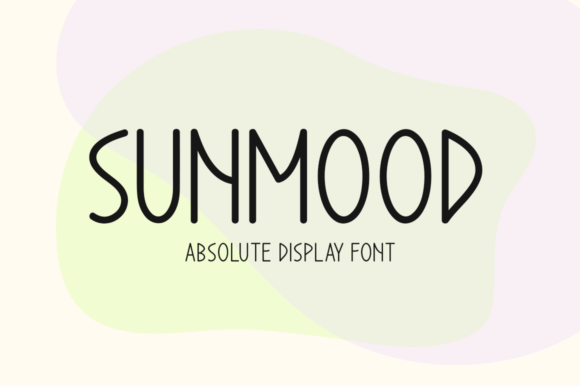
Get ready to unveil the exceptional Sunmood Font, a captivating handwritten display font designed to ignite your creativity and leave a lasting impression. Step into a world of visual delight as Sunmood's unique characters dance across your designs, evoking a sense of playfulness and genuine connection.
With Sunmood, you hold the key to unlocking endless possibilities. Picture your designs adorned with this enchanting font, transforming ordinary text into a symphony of visual artistry. From personal invitations to captivating social media posts, Sunmood seamlessly elevates your words, adding a touch of whimsy and heartfelt charm.
Imagine your designs basking in the warmth of Sunmood's embrace. Its carefully crafted curves and expressive strokes create an intimate and personal connection with your audience, inviting them to immerse themselves in your creative vision. From heartfelt birthday greetings to heartwarming love letters, Sunmood effortlessly captures the essence of human emotion, turning words into tangible expressions of joy, love, and gratitude.
But Sunmood's magic extends far beyond personal expression. Witness the transformation as this versatile font breathes life into logos, branding, and marketing materials. Its distinctive style adds a touch of uniqueness and personality, setting your brand apart from the ordinary. Sunmood has the power to elevate your visual identity, attracting attention and leaving a lasting impression on potential customers.
Sunmood is not just a font; it's an experience. Its playful nature invites interaction and engagement, encouraging your audience to engage with your content in a meaningful way. Whether adorning website headers, captivating flyers, or adding a personal touch to social media posts, Sunmood invites your audience to embark on a visual journey, leaving them inspired and eager for more.
Embrace the artistry of Sunmood and unlock the full potential of your creative expression. Its versatility knows no bounds, effortlessly adapting to a myriad of design applications. Let Sunmood be your creative companion, guiding you towards captivating designs that resonate with your audience, leaving an indelible mark on their hearts and minds.